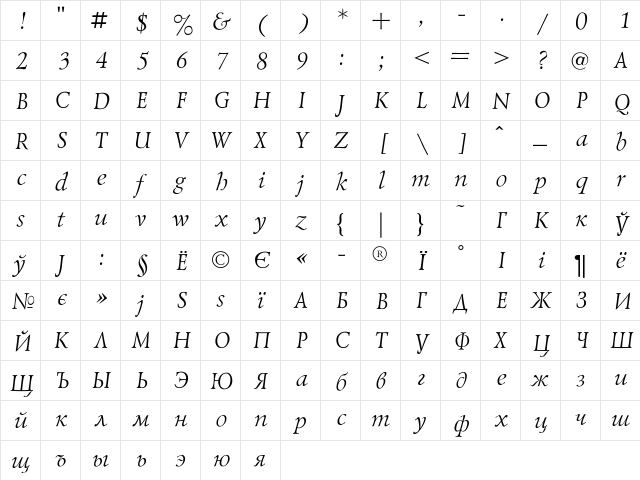
Lazurski Italic
Design Context for Lazurski Typeface
Lazurski offers clean, dependable letterforms without strong stylistic allegiance, making it a practical choice for designers who need flexibility. Its italic angle brings a sense of urgency and motion to the letterforms.
Pro Tip: Use Lazurski for emphasis, pull quotes, and subheadings where its slanted energy can add rhythm to the layout.